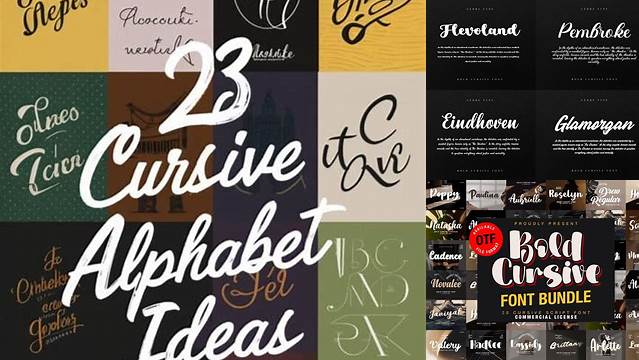
Download Bold Cursive Fonts: Add Elegance To Your Designs
Are you looking to add a touch of elegance and personality to your design projects? Bold cursive fonts are a fantastic way to do just that! These fonts combine the flowing, handwritten style of cursive with the impact and emphasis of bold lettering, creating a visually striking effect. Whether you're designing invitations, logos, websites, or social media graphics, the right bold cursive font can make all the difference.
What are Bold Cursive Fonts?
Bold cursive fonts are a beautiful blend of two distinct typographic styles. Cursive fonts mimic handwriting, with flowing strokes and connected letters, evoking a sense of sophistication and personal touch. The 'bold' aspect adds weight and thickness to the strokes, making the font stand out and grab attention. This combination results in a typeface that's both eye-catching and refined, suitable for various design applications.
Applications of Bold Cursive Fonts
Bold cursive fonts are incredibly versatile and can be used in a wide range of projects. Let's explore some popular applications:
- Invitations and Announcements: Planning a wedding, birthday party, or special event? A bold cursive font can add a touch of elegance and sophistication to your invitations. Using a stylish bold cursive font can instantly elevate the design, making it more memorable for your guests. The flowing lines and bold strokes create a sense of celebration and anticipation, setting the tone for the event.
- Logos and Branding: For businesses looking to convey a sense of luxury, creativity, or personal service, a bold cursive font can be an excellent choice for their logo. Think of high-end fashion brands, boutique shops, or artisanal food producers – these types of businesses often use cursive fonts to project an image of quality and attention to detail. The bold element ensures that the logo remains visible and impactful, even at smaller sizes.
- Websites and Blogs: Adding a bold cursive font to your website can enhance its visual appeal and create a unique user experience. Use it for headings, titles, or call-to-action buttons to draw attention to important elements. However, it's essential to use cursive fonts sparingly on websites to maintain readability. Pairing a bold cursive font with a simpler sans-serif font for body text can create a balanced and professional look.
- Social Media Graphics: In the fast-paced world of social media, grabbing attention is crucial. Using a bold cursive font in your social media graphics can help your posts stand out from the crowd. Whether you're promoting a product, announcing an event, or sharing a quote, a stylish cursive font can make your message more visually appealing and engaging. Just be sure to maintain consistency with your brand's overall aesthetic.
- Print Materials: From business cards to brochures, bold cursive fonts can add a touch of elegance and personality to your print materials. Use them to highlight key information, create visual interest, and reinforce your brand identity. When using cursive fonts in print, it's important to choose a font that's legible at the printed size. Test different font sizes and weights to ensure that the text is easy to read.
- Google Fonts: Google Fonts is a fantastic resource for free, open-source fonts. They have a wide selection of cursive fonts, some of which also come in bold variations. The great thing about Google Fonts is that they're easy to use on websites; you can simply embed them with a few lines of code. Plus, since they're open-source, you can use them for commercial projects without worrying about licensing issues.
- Adobe Fonts: If you're an Adobe Creative Cloud subscriber, you have access to Adobe Fonts, a vast library of high-quality fonts. They have a ton of beautiful cursive fonts, including many bold options. Adobe Fonts are seamlessly integrated with Adobe's design software, making it easy to experiment with different typefaces in your projects. Plus, the licensing is straightforward, so you can use them with confidence.
- MyFonts: MyFonts is a popular online marketplace for fonts, with a huge selection of both free and premium options. They have a wide variety of cursive fonts, including many bold and decorative styles. One of the cool things about MyFonts is that you can try out fonts before you buy them to see how they look in your designs. They also offer excellent customer support, so you can get help if you have any questions.
- Font Squirrel: Font Squirrel is another great resource for free, commercial-use fonts. They have a curated collection of high-quality typefaces, including some stylish cursive fonts with bold options. All the fonts on Font Squirrel come with clear licensing information, so you know exactly how you can use them. Plus, they offer a handy font generator tool that lets you create web fonts from desktop fonts.
Bold cursive fonts are a fantastic way to add a touch of elegance and personality to your design projects. With so many options available, you're sure to find the perfect font for your needs. So go ahead, download some bold cursive fonts and start creating beautiful designs! Just remember to choose wisely, ensure readability, and respect the licensing terms. Happy designing, everyone!